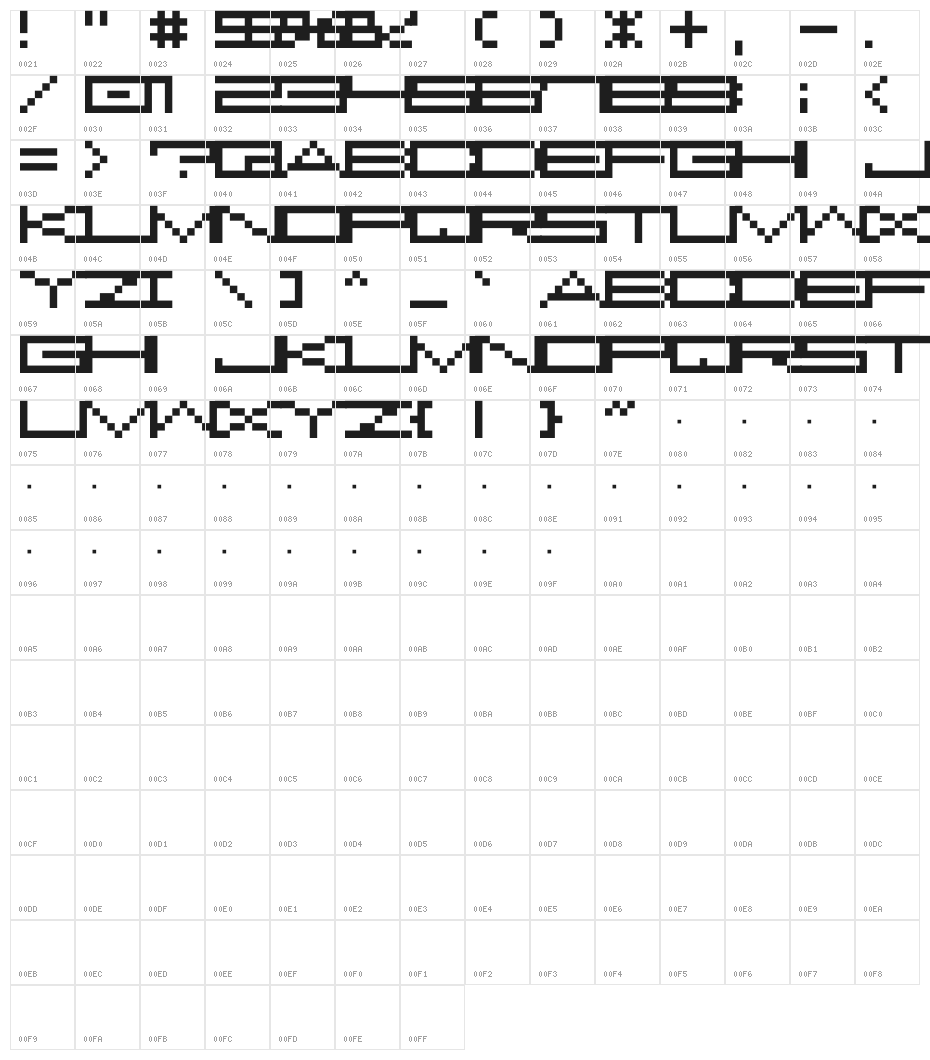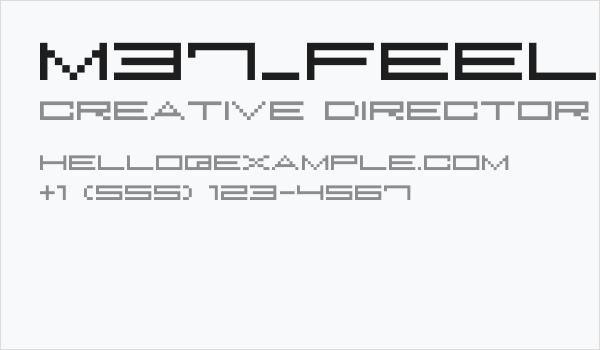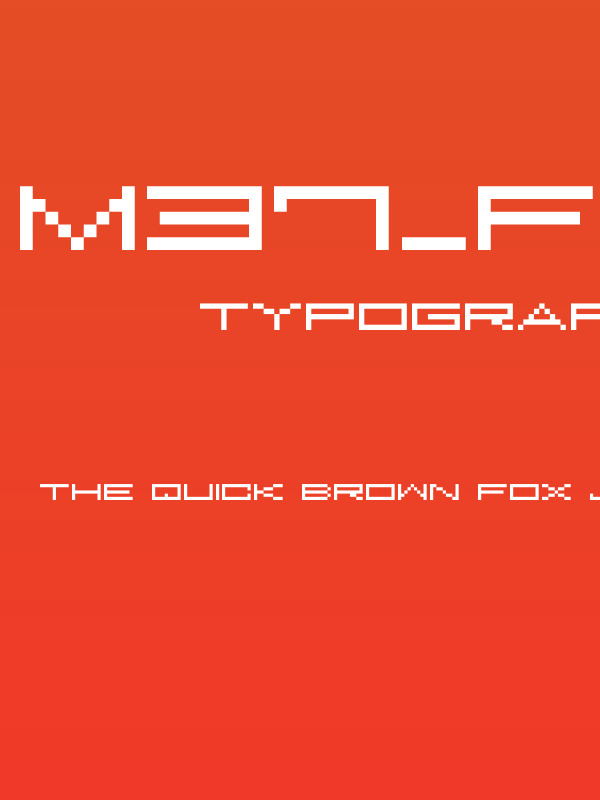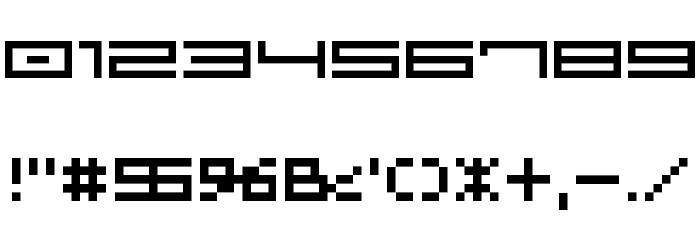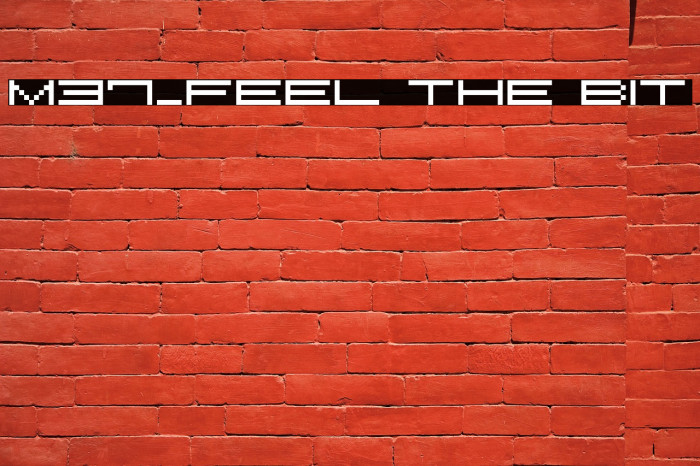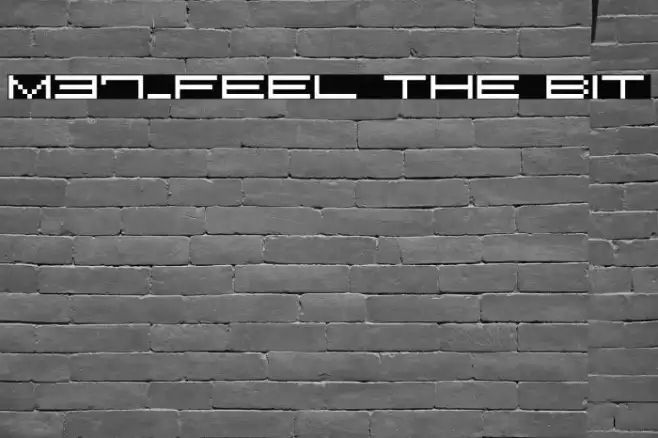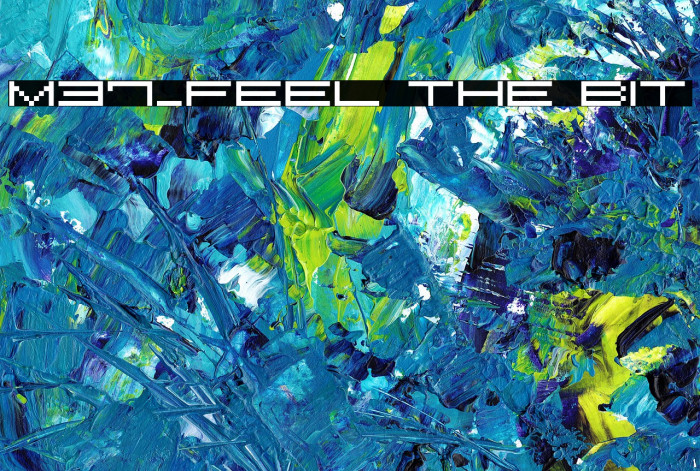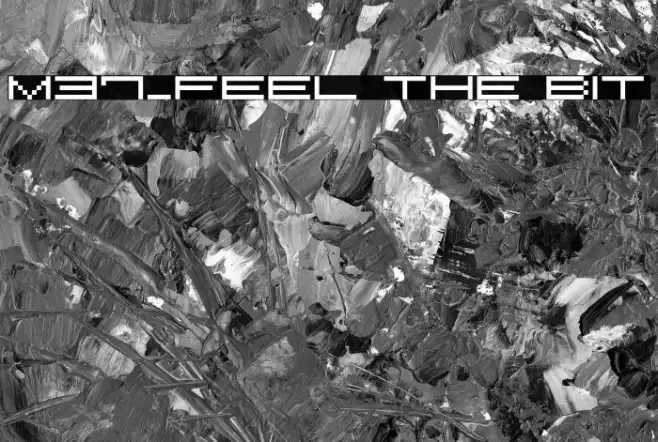
M37_FEEL THE BIT Font
M37_FEEL THE BIT Description
This font features a distinct pixelated design, reminiscent of early digital displays and retro video games. Each character is constructed with a grid-like pattern, giving it a blocky and geometric appearance. The uppercase and lowercase letters maintain a consistent style, with sharp angles and uniform line thickness. Numbers and special characters follow the same pixelated theme, ensuring visual harmony across all glyphs. The font's unique style makes it ideal for projects that aim to evoke nostalgia or a digital aesthetic.
| Overall Style | Retro, Digital |
| Use Case | Logos, Posters, Digital Art |
| Proposed Projects | Ideal for retro video game designs, digital art projects, tech-themed posters, and any creative work that requires a nostalgic or digital look. |